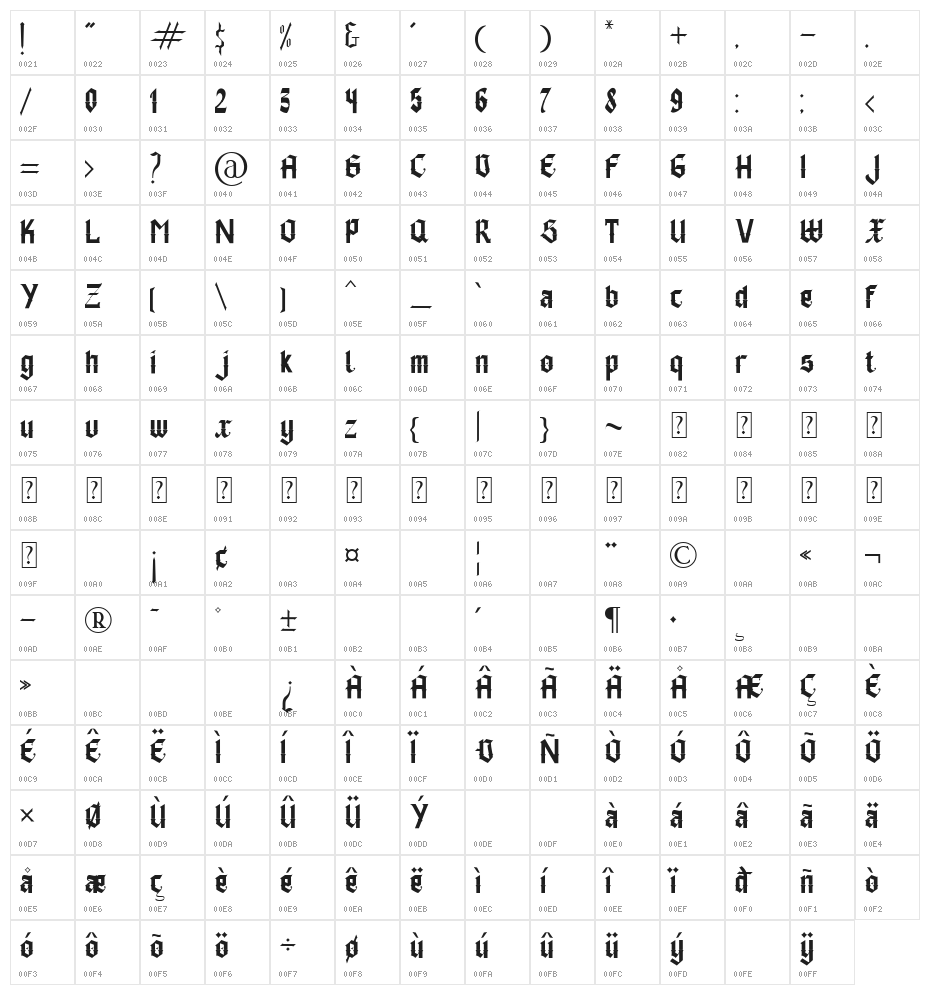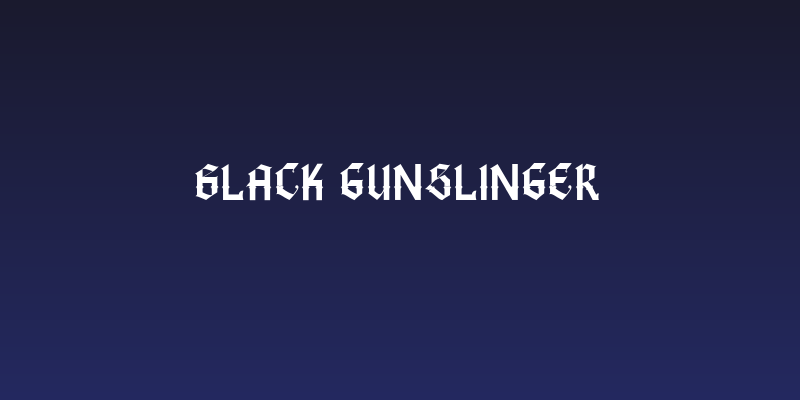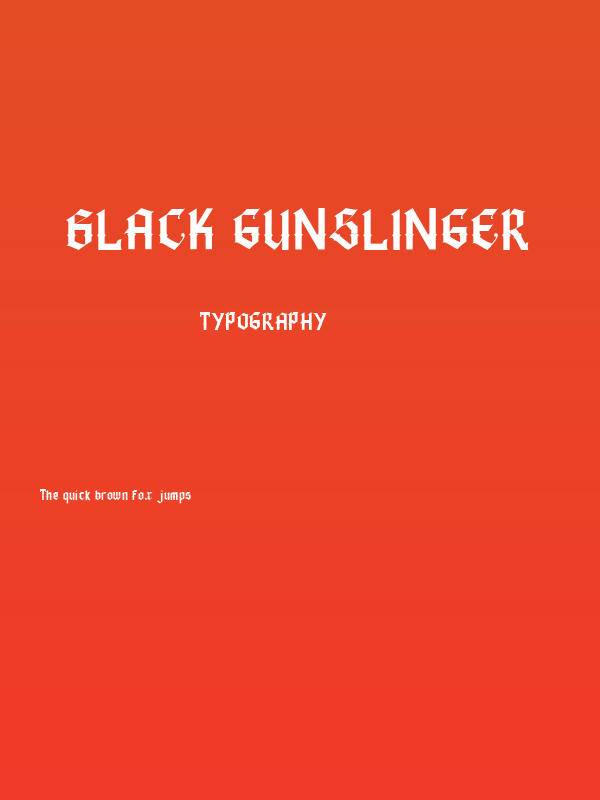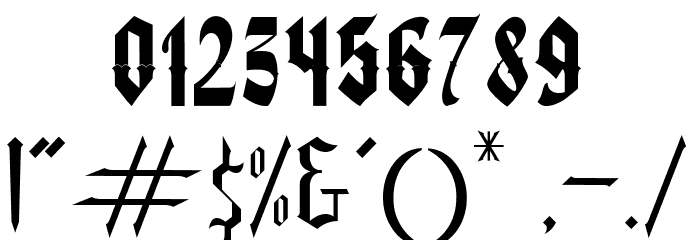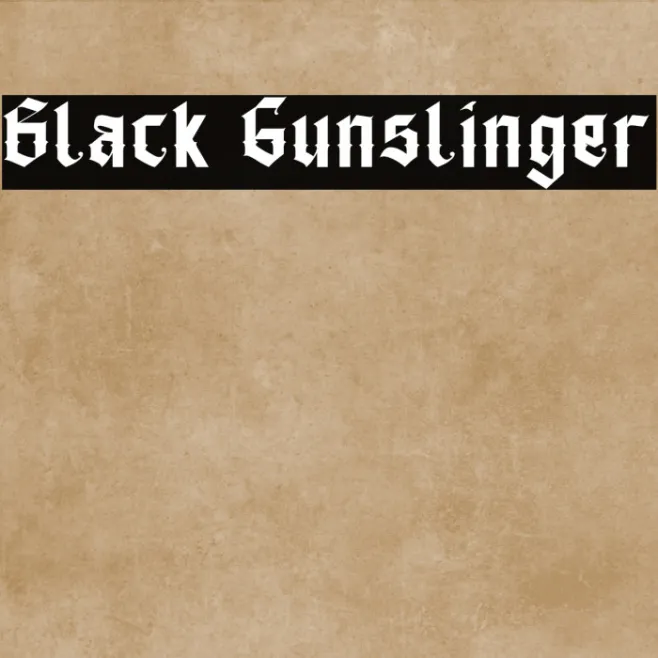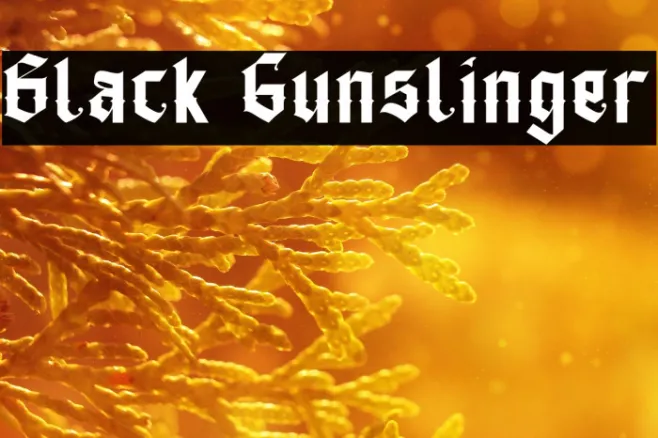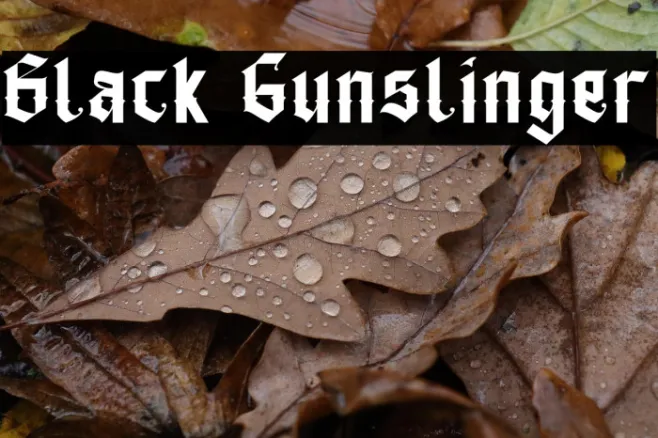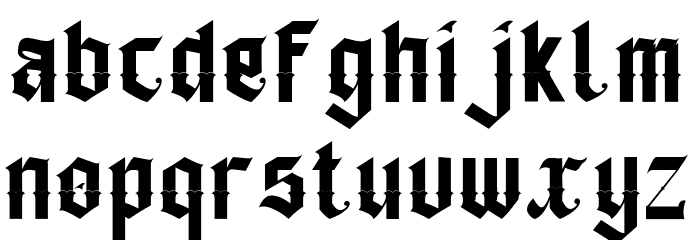
Black Gunslinger Font
Black Gunslinger Description
This font features a bold, angular design reminiscent of traditional blackletter styles, yet with a modern twist. The characters are sharply defined with pointed edges and a strong vertical emphasis, giving it a striking and commanding presence. The uppercase letters are particularly ornate, with intricate details that evoke a sense of historical elegance. The lowercase letters maintain a consistent style, ensuring readability while preserving the decorative nature of the font. Numbers and special characters are crafted with the same attention to detail, making this font versatile for various uses. Its unique style makes it suitable for projects that require a bold and dramatic aesthetic.
| Proposed Projects | Ideal for posters, logos, book covers, and any design requiring a dramatic, historical touch. |